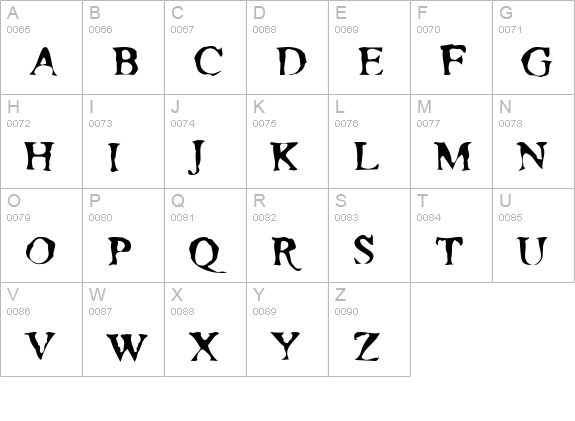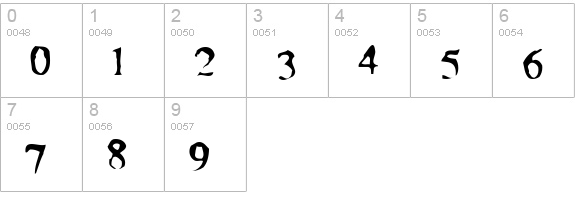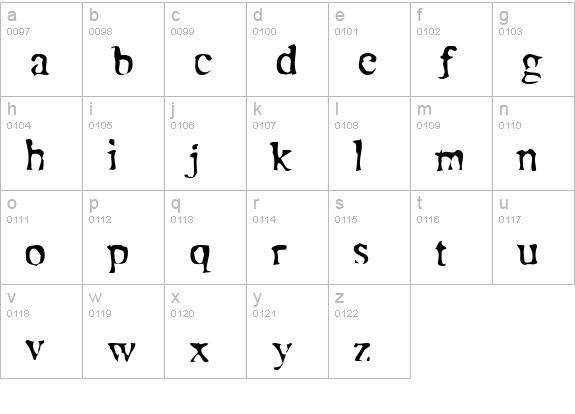
Moonshine Font Details
Moonshine font is a whimsical and playful typeface that exudes a sense of charm and uniqueness. Its rounded edges and quirky details give it a friendly and inviting appearance, making it perfect for a wide range of creative projects. Whether you're designing greeting cards, posters, or branding materials, Moonshine font will add a touch of personality to your work. What's even better is that Moonshine font is completely free! Yes, you read that right - this delightful font is freely available to download at FontsMarket.com. So go ahead and add a little bit of magic to your designs with Moonshine font today!